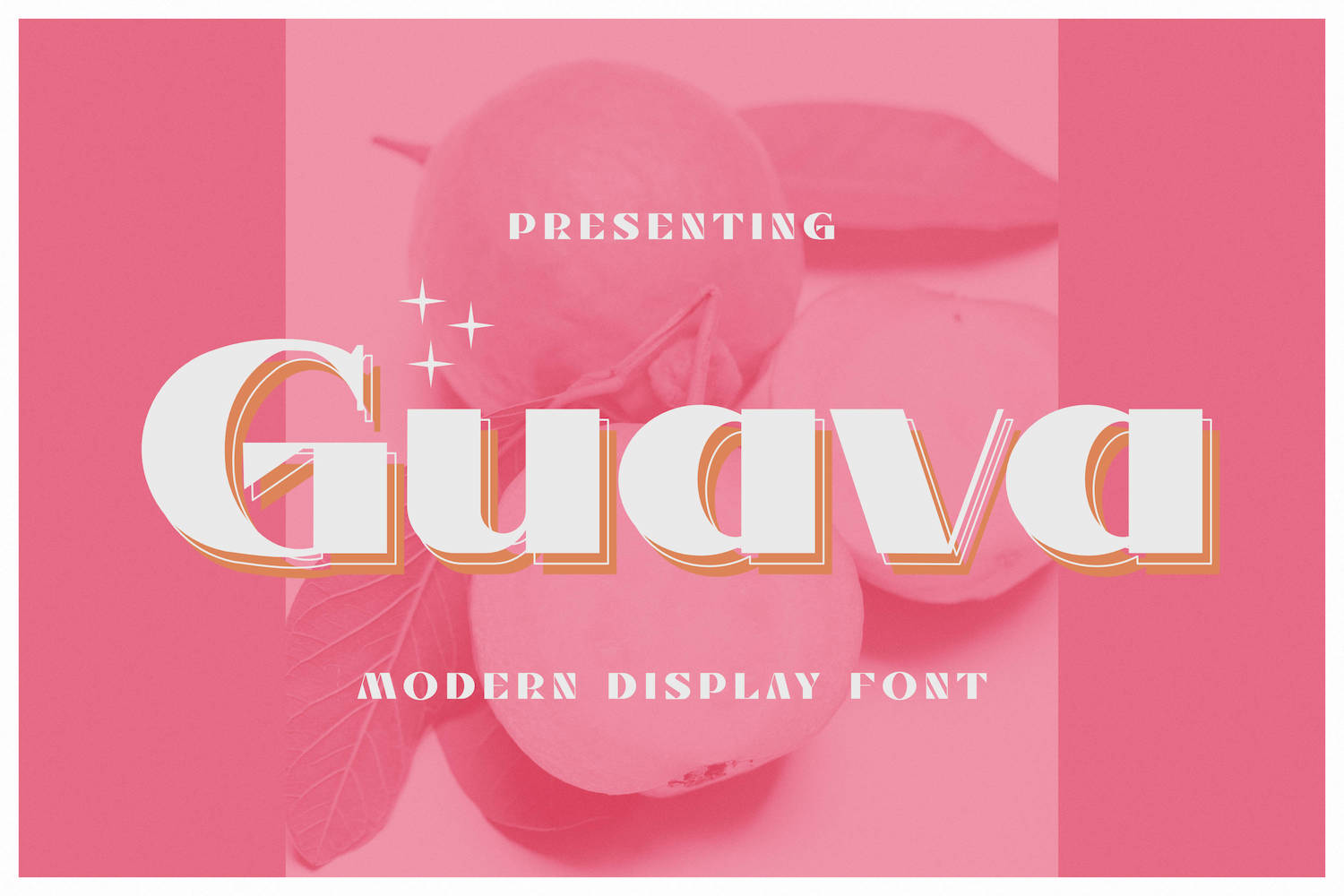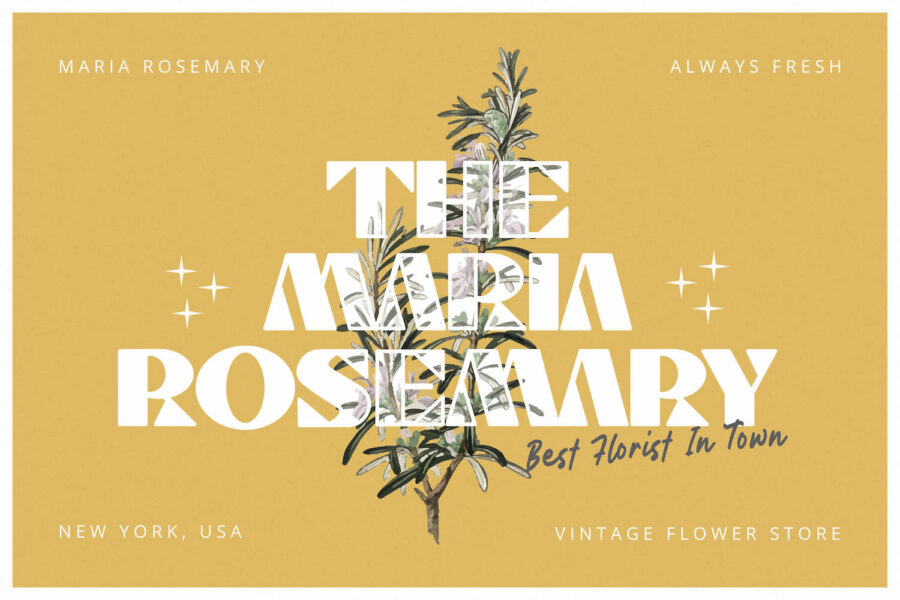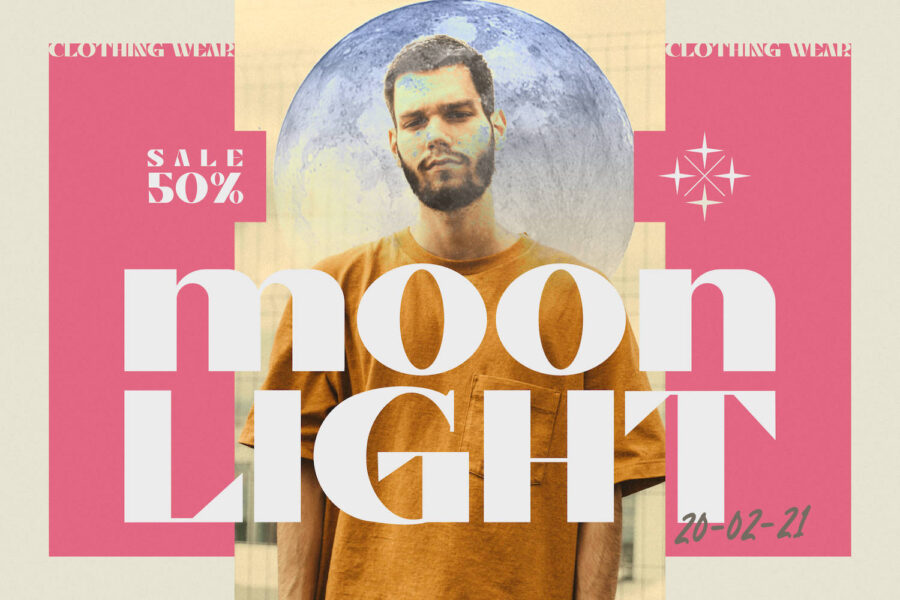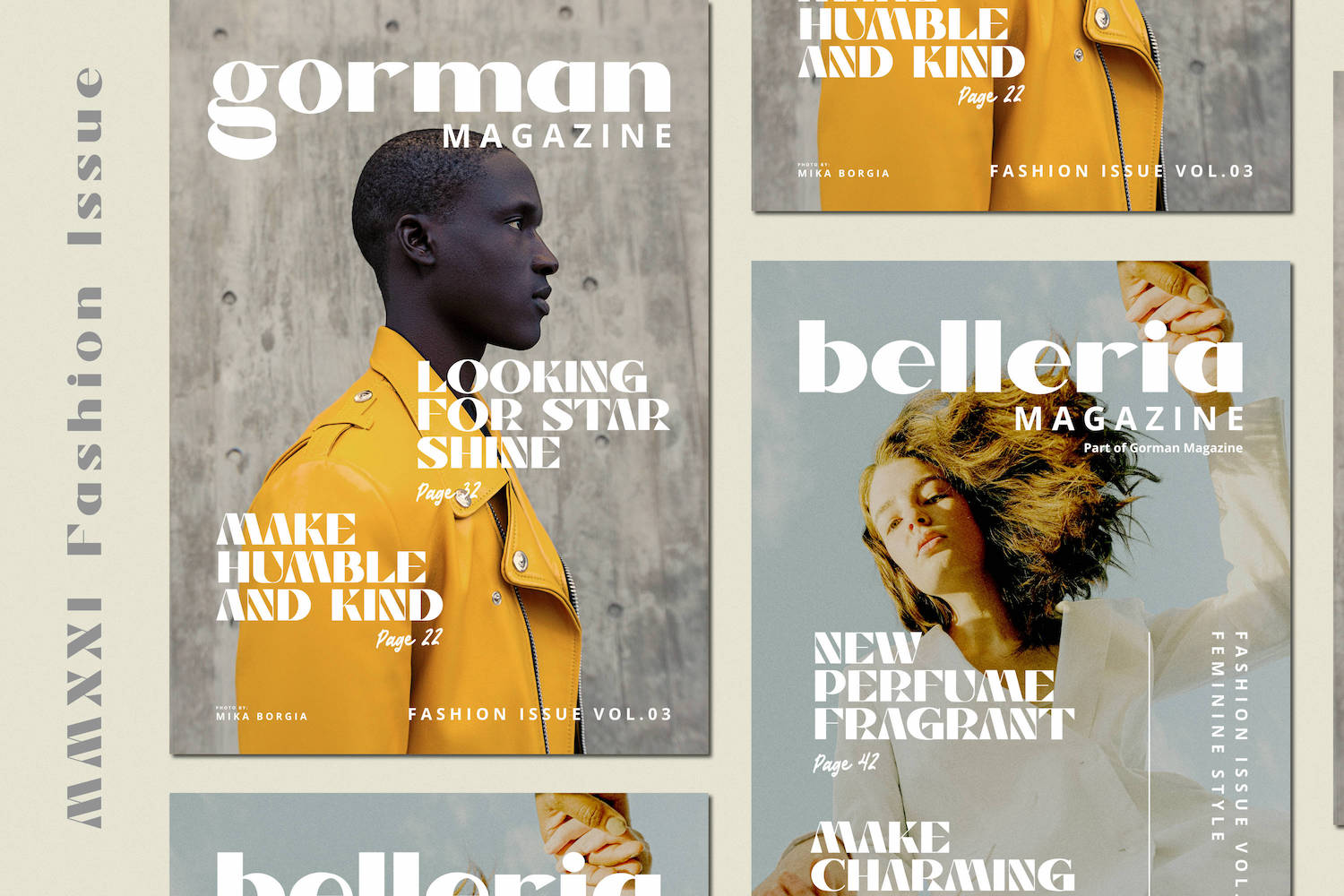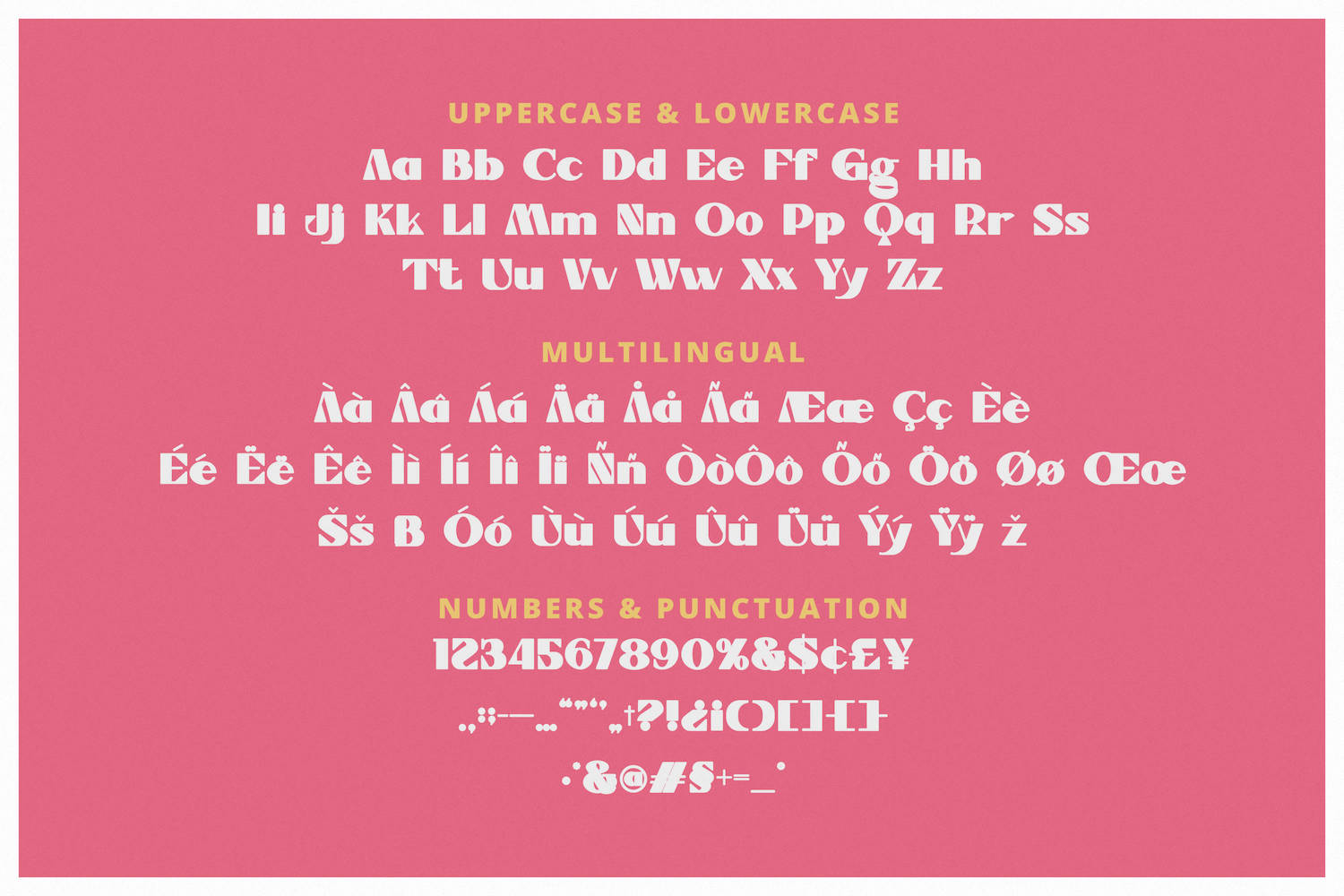
Guava is a bold and modern display font with a sweet and playful twist. Its unique cutout style and thick letterforms make it perfect for headlines, packaging, branding, and editorial use. Inspired by retro aesthetics and blended with contemporary flair, Guava brings a refreshing look to any design project.
With its multilingual support and full set of alternates, numbers, and punctuation, Guava ensures versatility for both digital and print applications. Whether you’re designing for fashion, beauty, or lifestyle brands, this font adds a charming and stylish touch that effortlessly captures attention.
Guava